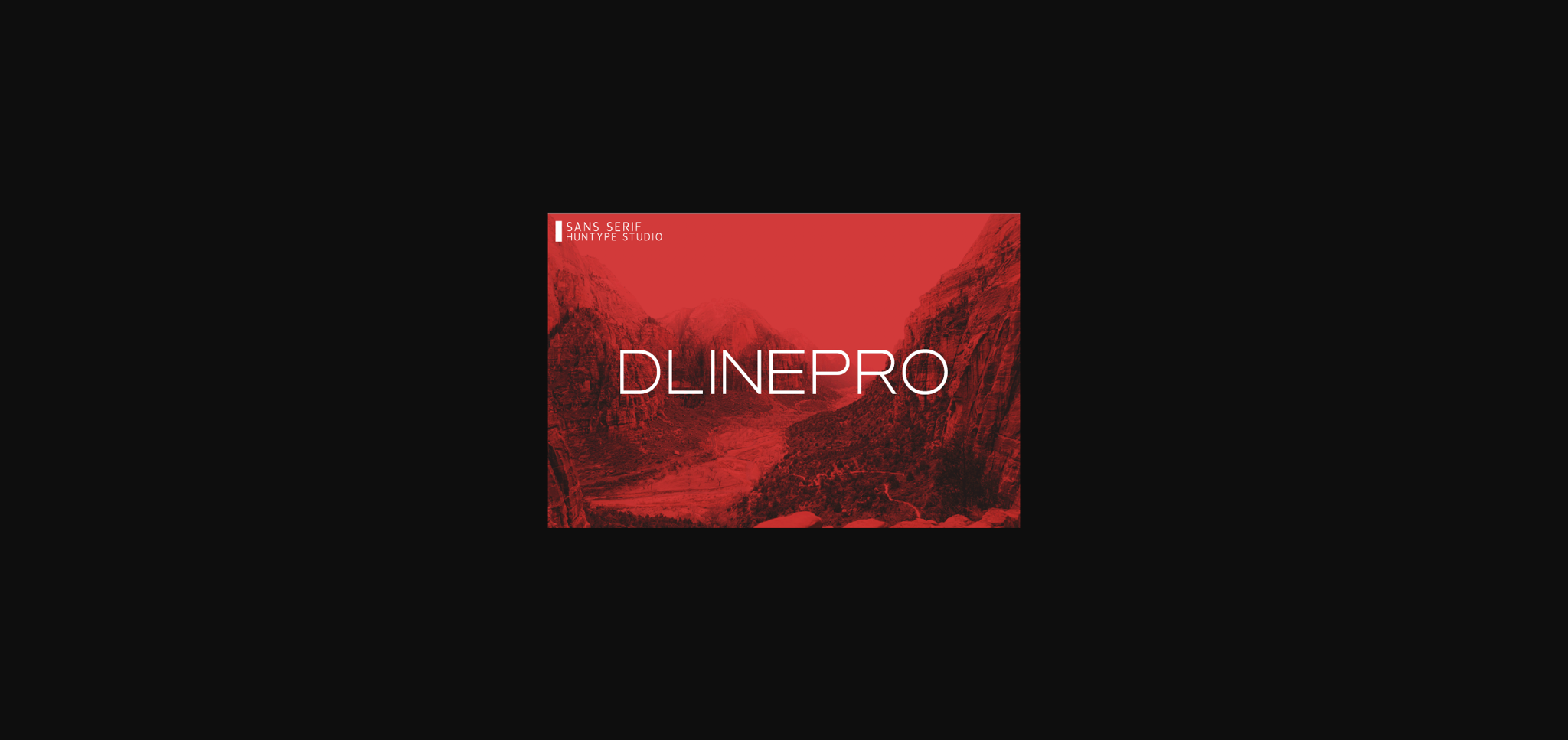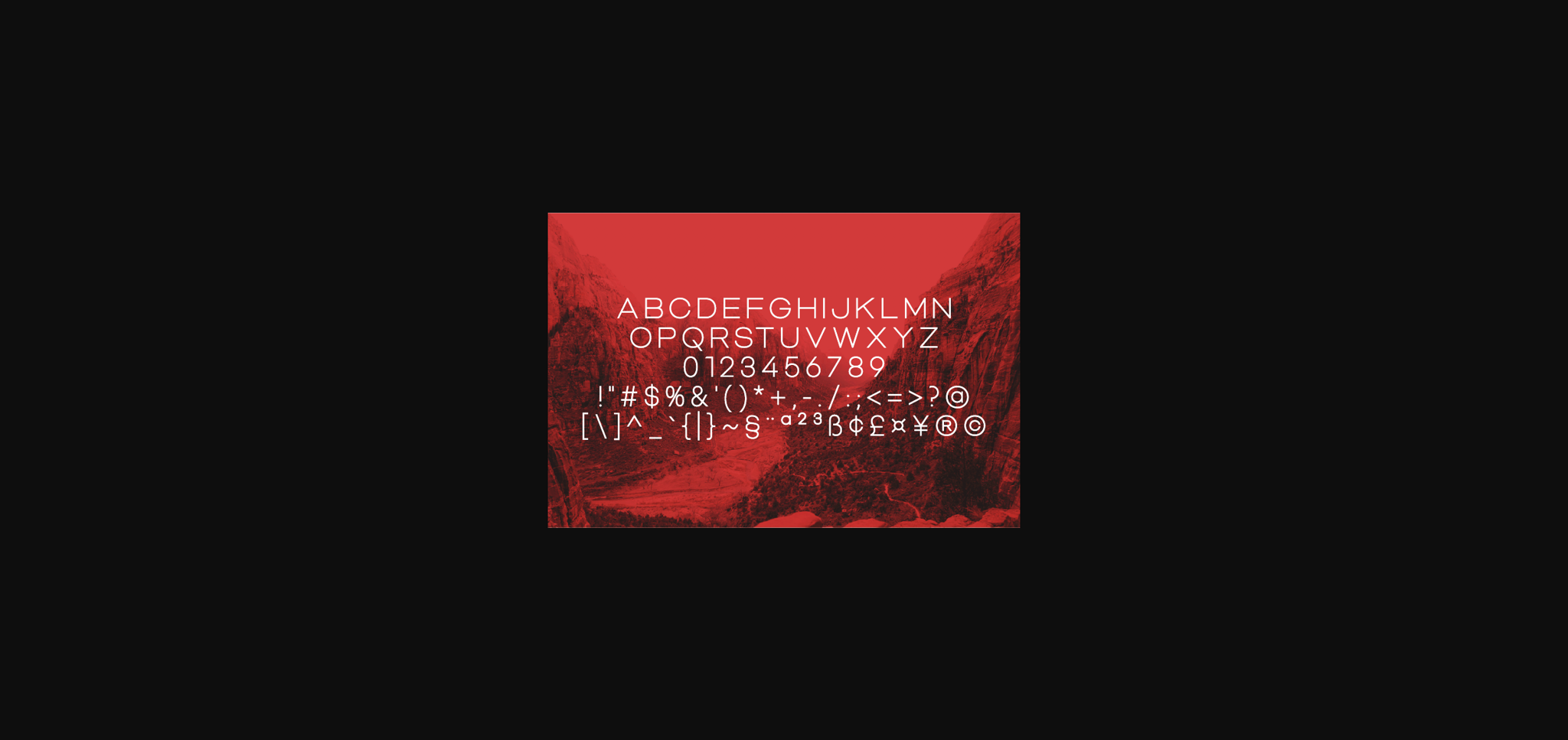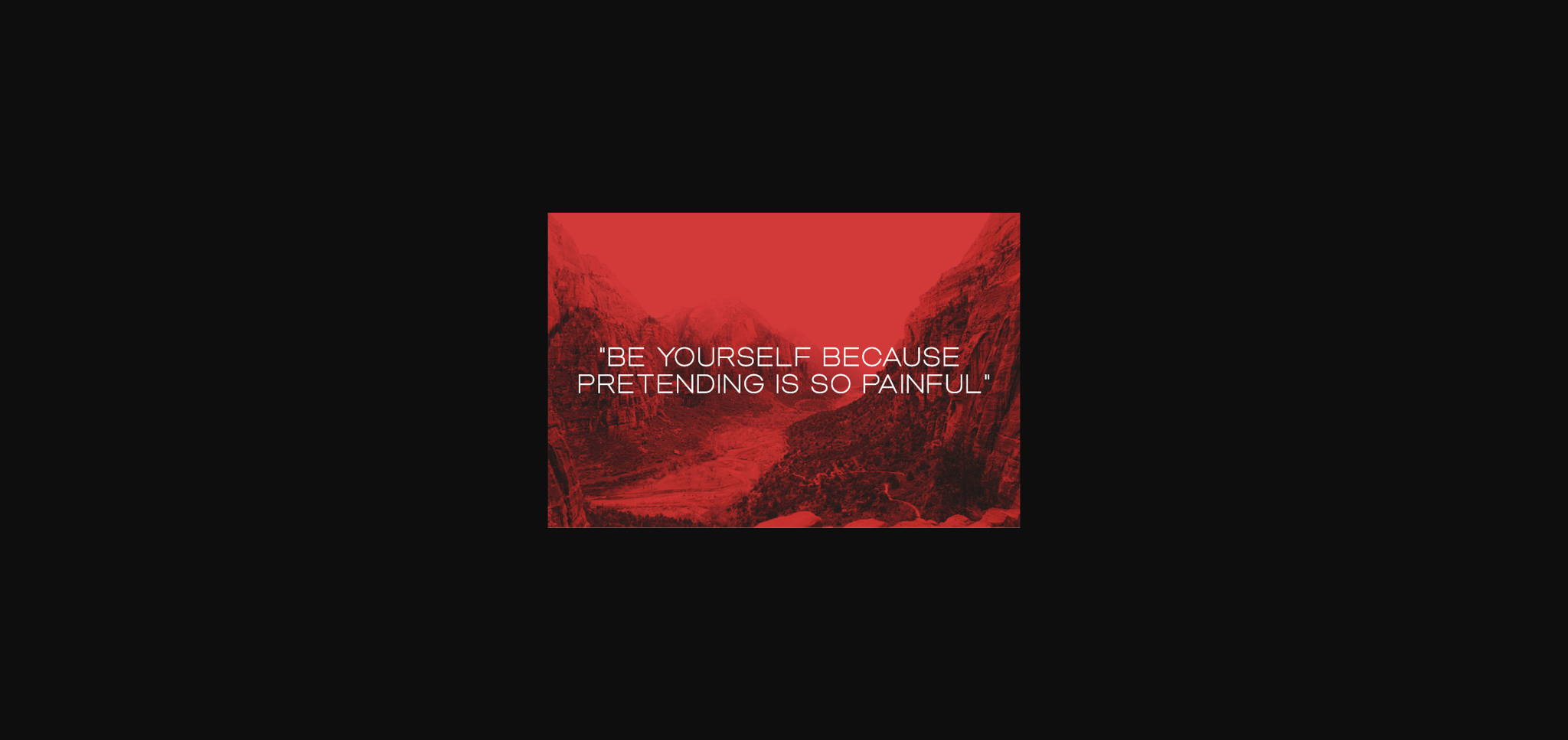
Dlinepro Font
About Dlinepro Font
Dlinepro is a modern and clean sans serif font that is versatile and looks great in just about any context. With smooth and clean lines, and just a touch of contrast, Dlinepro works beautifully for logos, branding, web headings and much more.